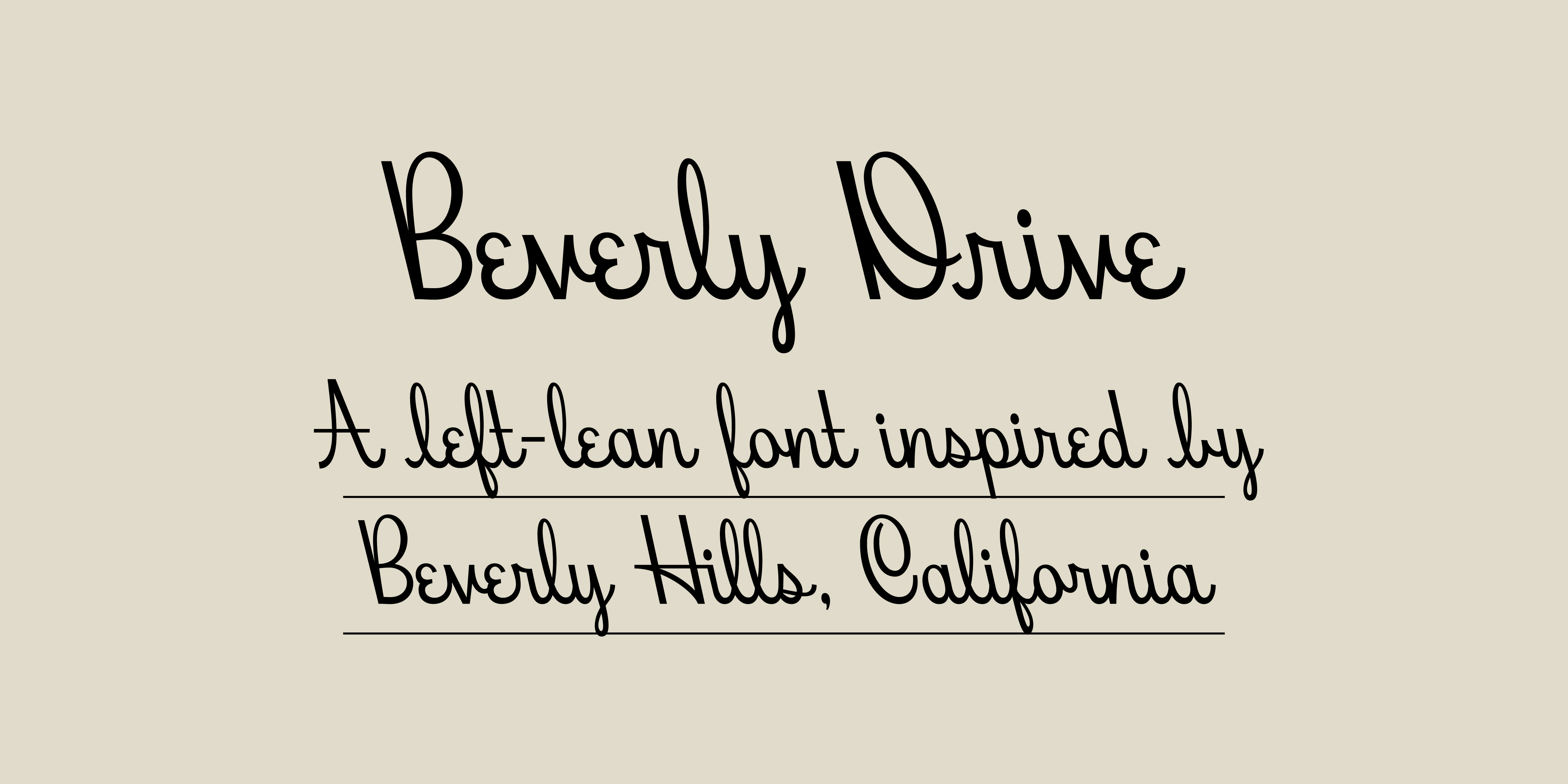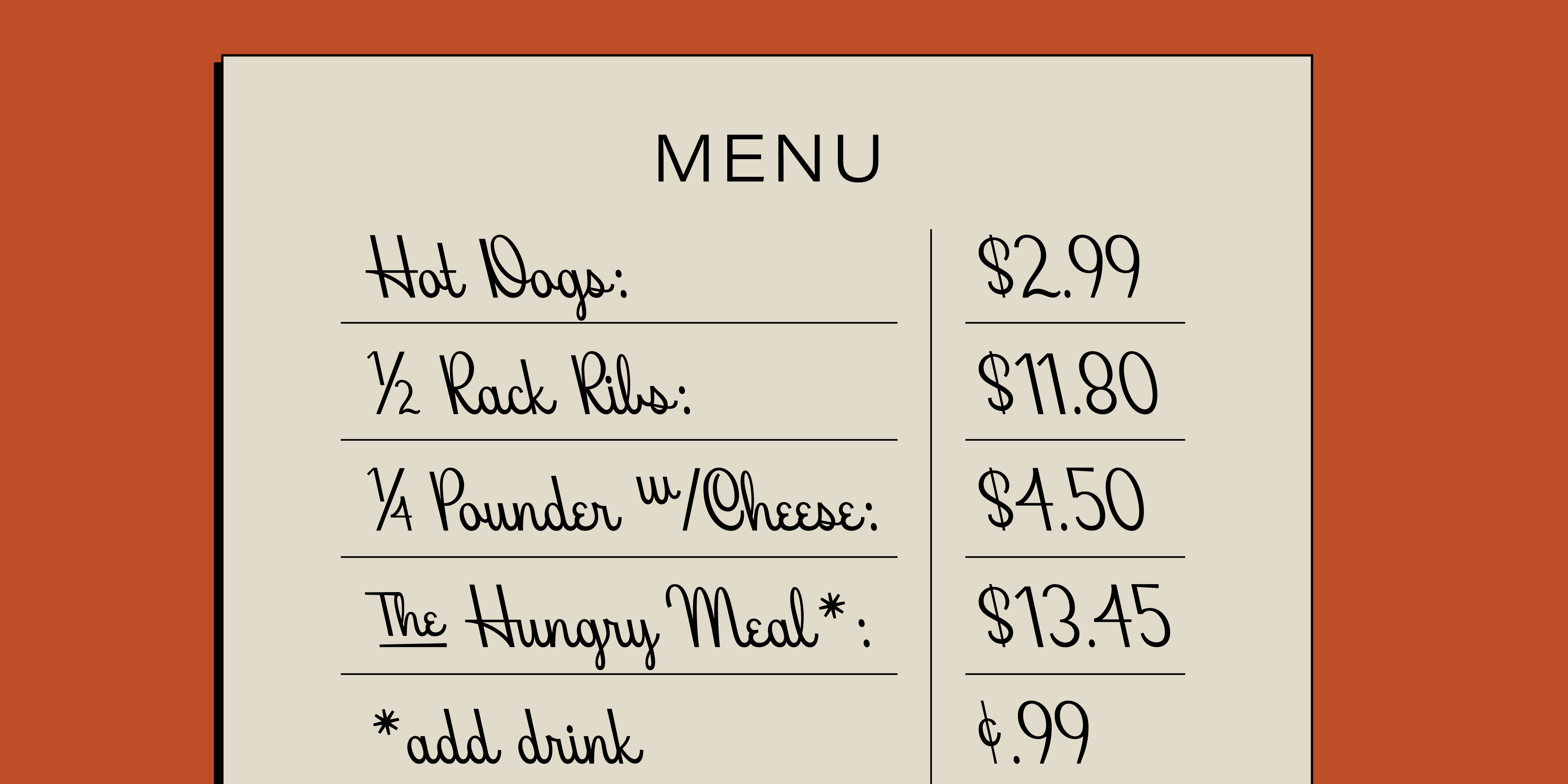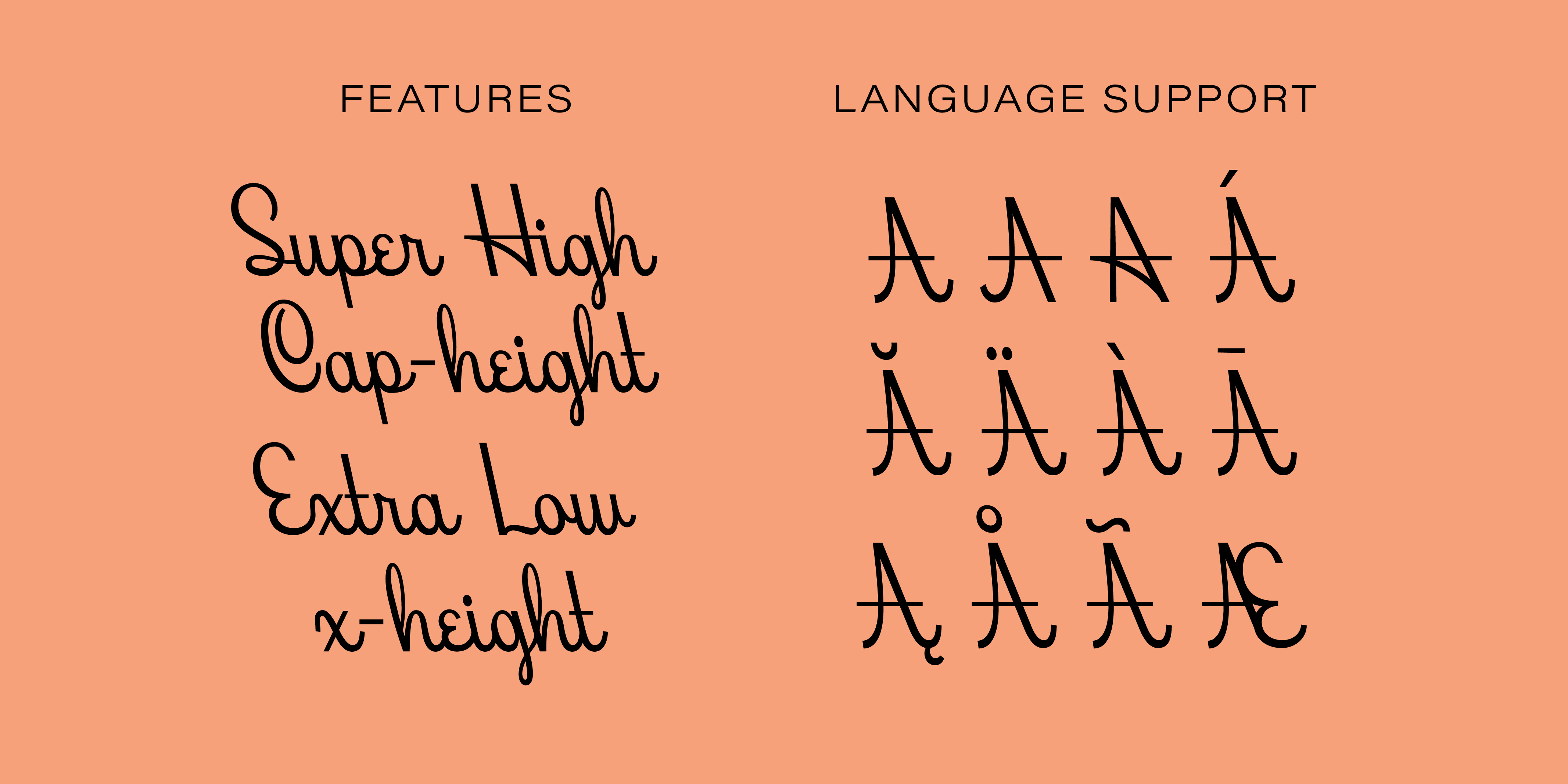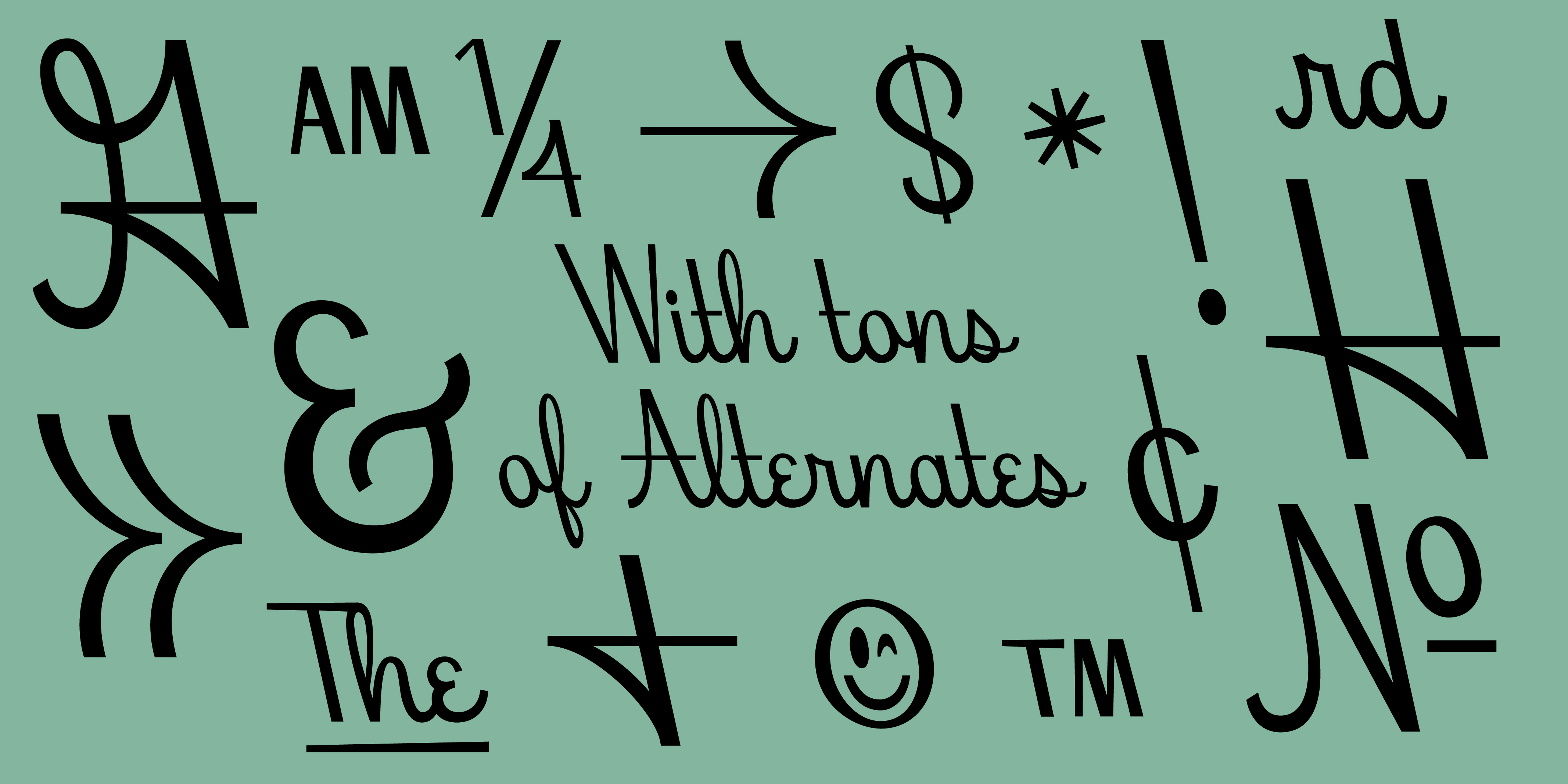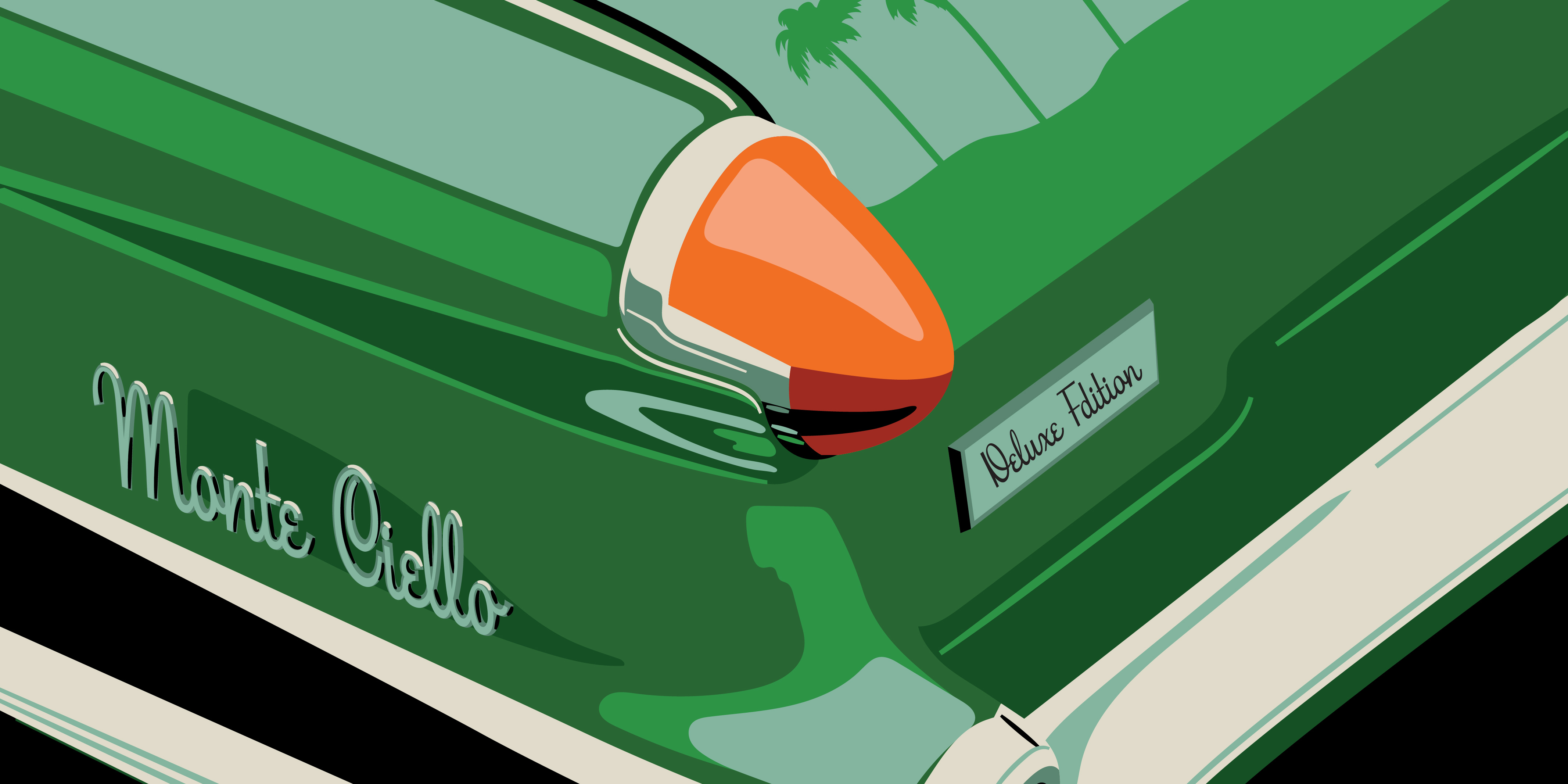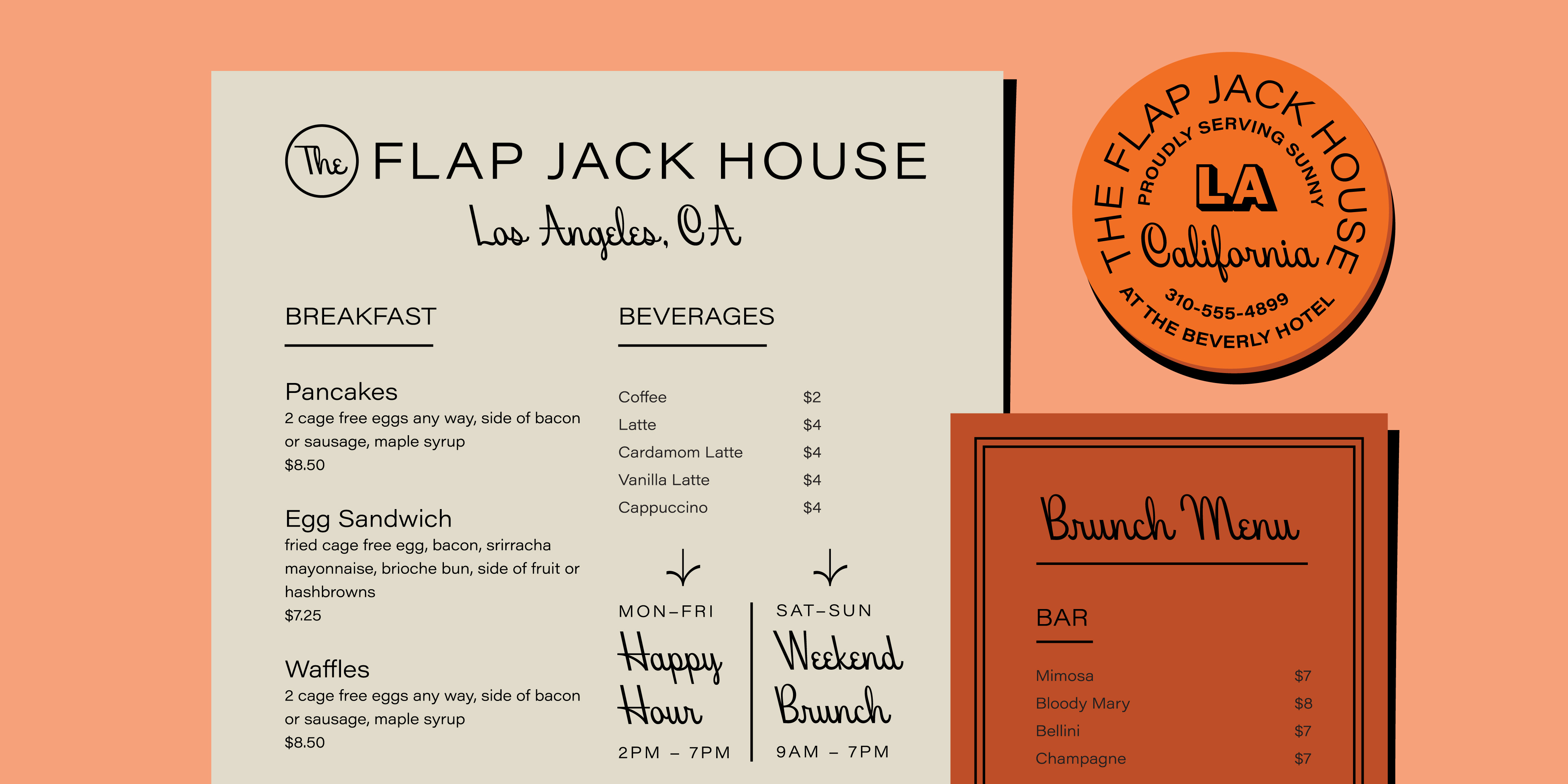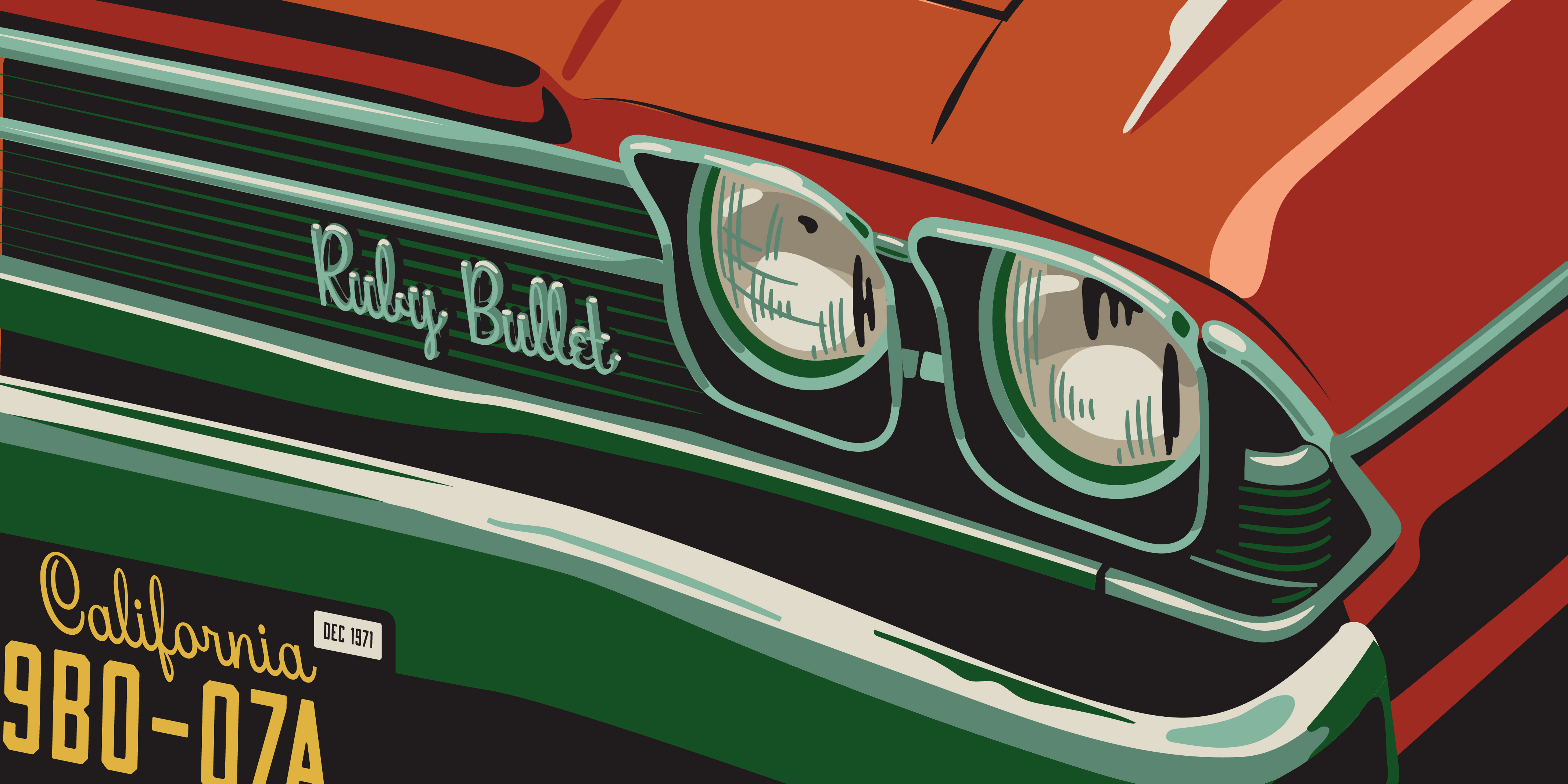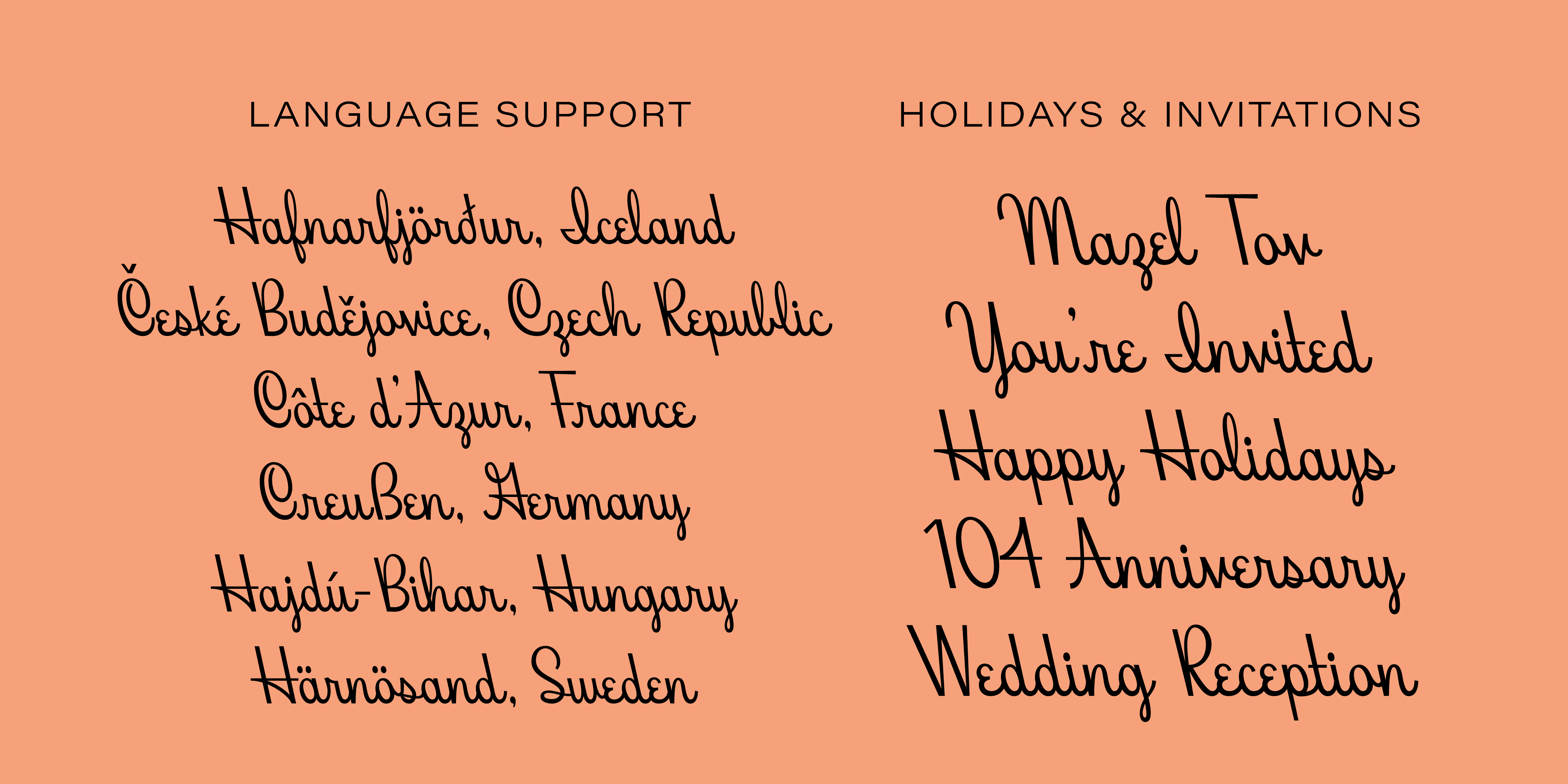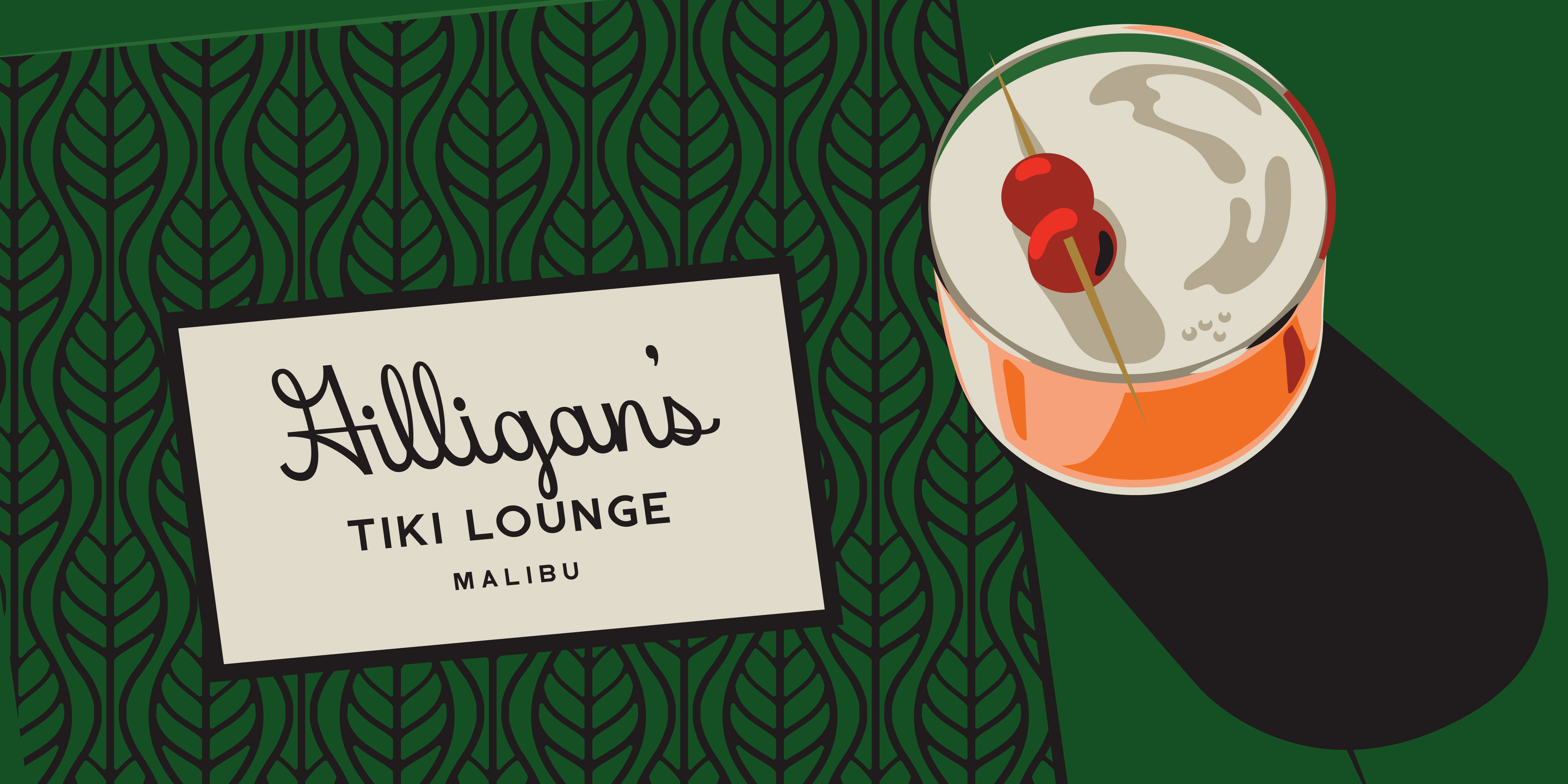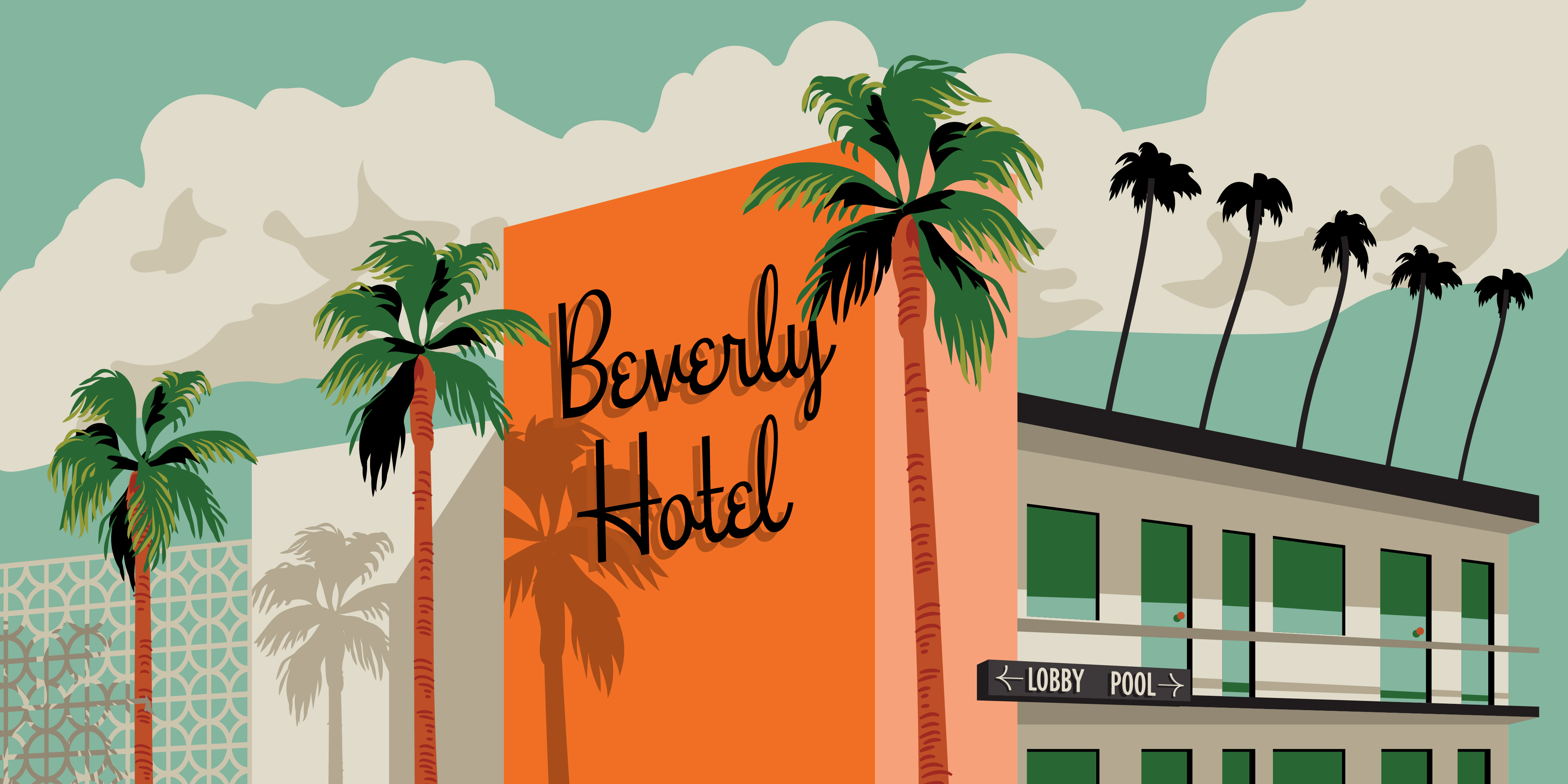
Beverly Drive
Script
A left-leaning script inspired by Beverly Hills.
Beverly Drive is a left-leaning script font from Hoodzpah, Inc. inspired by Beverly Hills: from the posh Rodeo shop signs, to the kitschy apartment complex logos. Beverly Drive is the kind of font you can dress up (holiday cards or wedding invitations) or dress down (can’t you just imagine this on a laminated diner menu?).